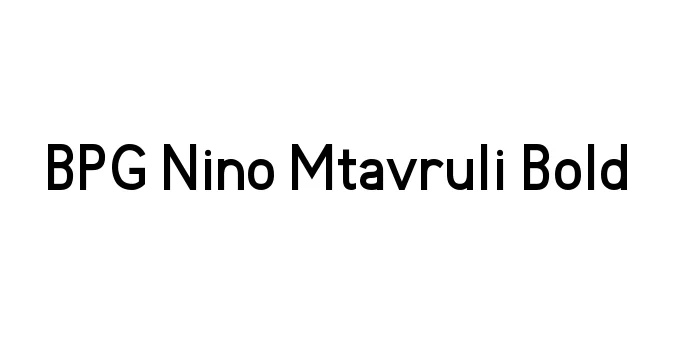
BPG Nino Mtavruli Bold
Designed by Besarion Paata Gugushvili
BPG Nino Mtavruli Bold is a sophisticated typeface belonging to the BPG font family, specifically engineered for the Georgian script by Besarion Paata Gugushvili. It utilizes the Mtavruli style, which is a specialized form of Georgian typography where characters are designed to sit on a uniform baseline without the varying heights typically found in Mkhedruli script. This makes the bold weight particularly effective for creating authoritative and visually striking headers that maintain a clean, modern aesthetic.
The font is widely recognized for its clarity and structural integrity, making it a favorite among graphic designers and publishers in Georgia. As a Display Sans Serif, it bridges the gap between traditional calligraphic roots and contemporary digital requirements. Its bold strokes ensure high visibility and legibility even from a distance, which is why it has become a standard choice for television broadcasting, outdoor advertising, and web headers requiring a professional Georgian presence.
BPG Nino Mtavruli Bold Best Uses
Commanding attention in news titles and article headers.
Creating high-impact visual layouts for events and advertisements.
Distinguishing section titles and navigation menus on Georgian websites.
Developing corporate identities and logos with a strong regional identity.